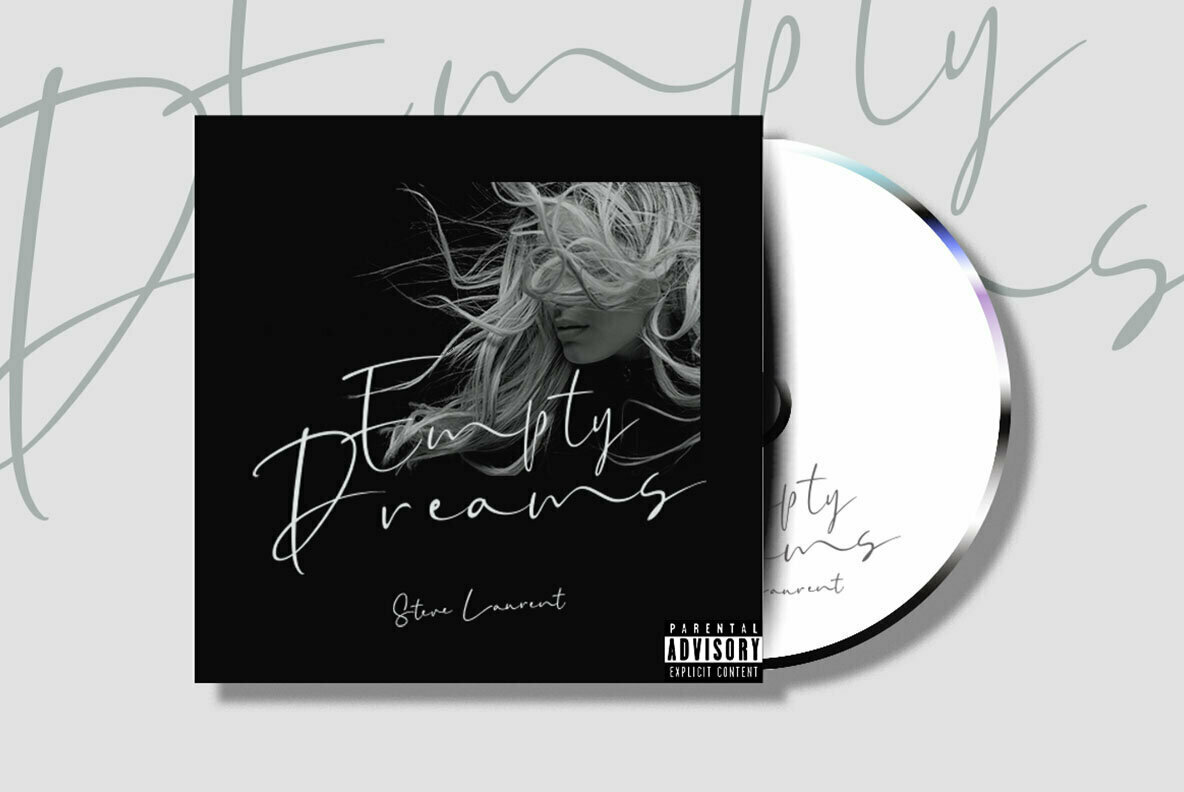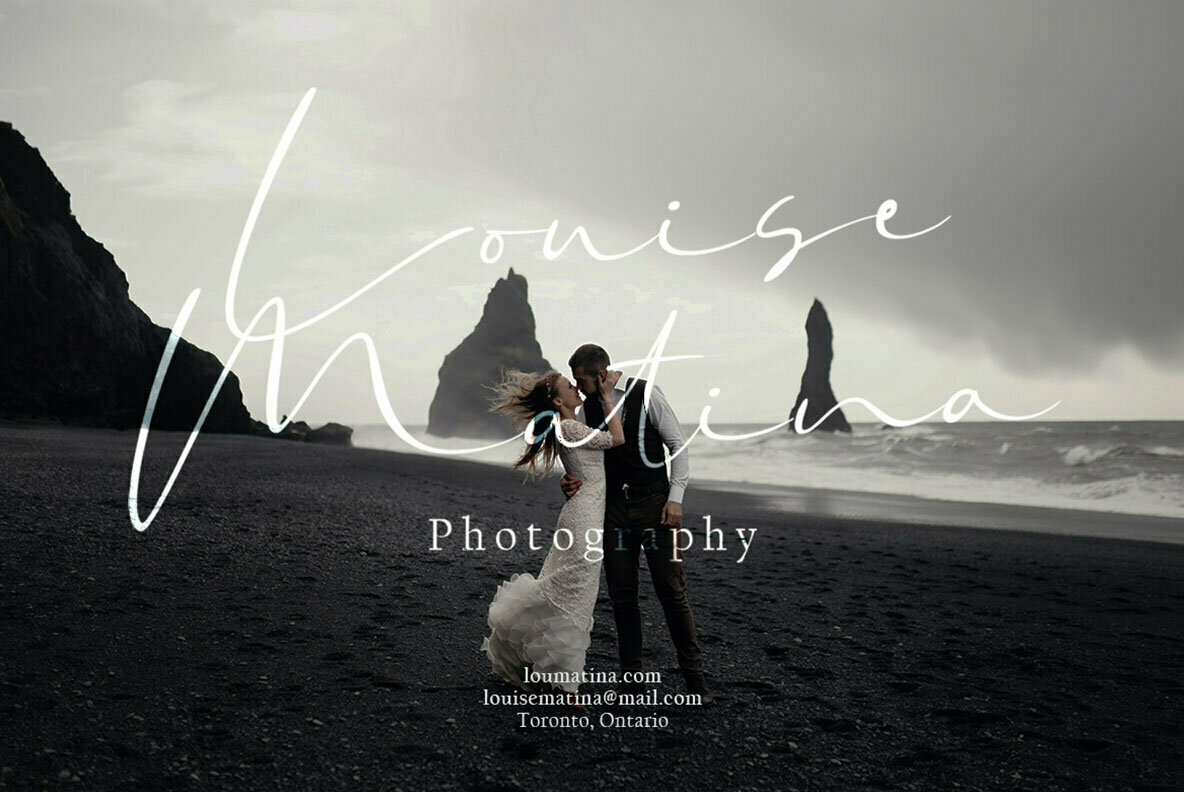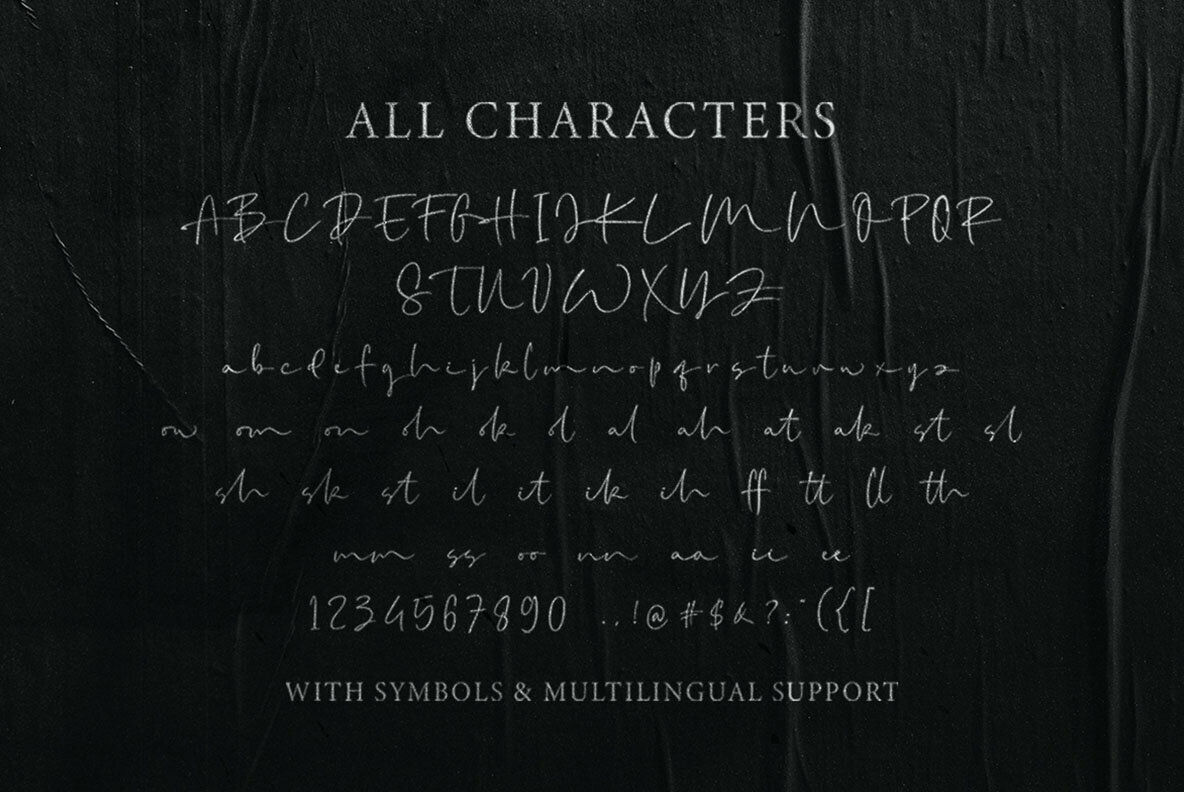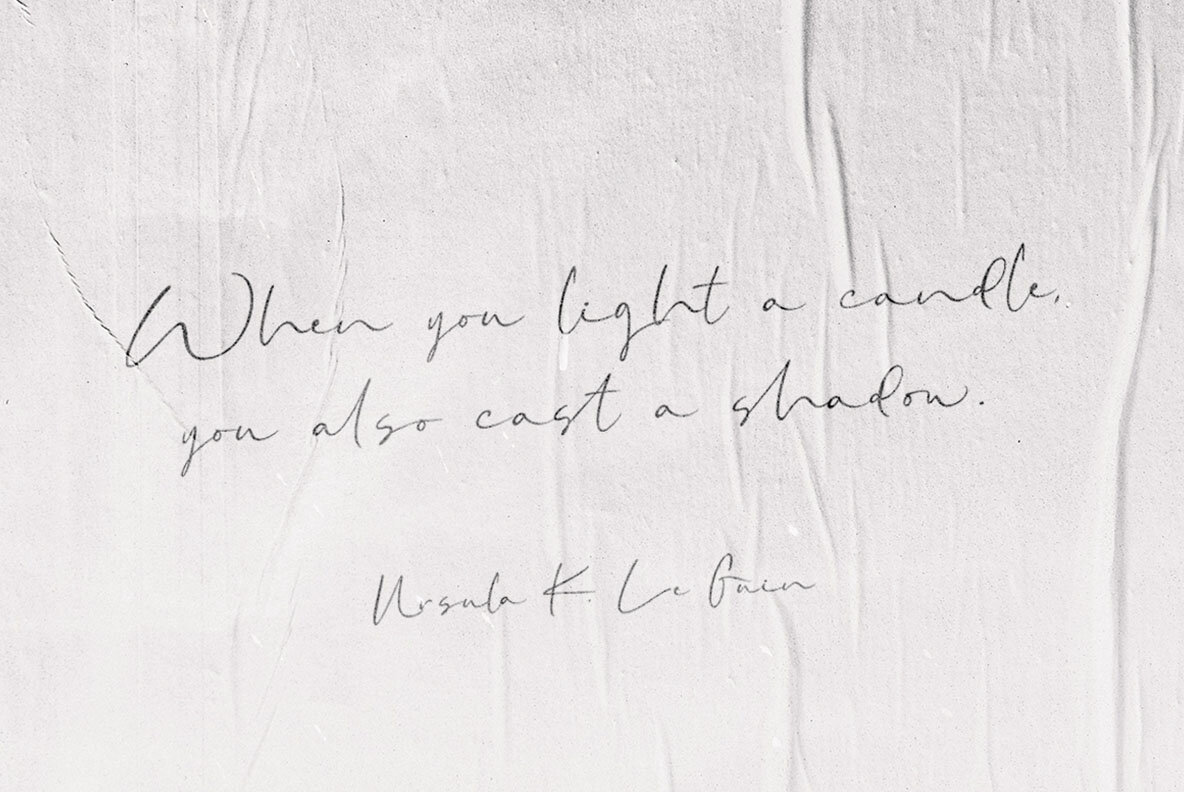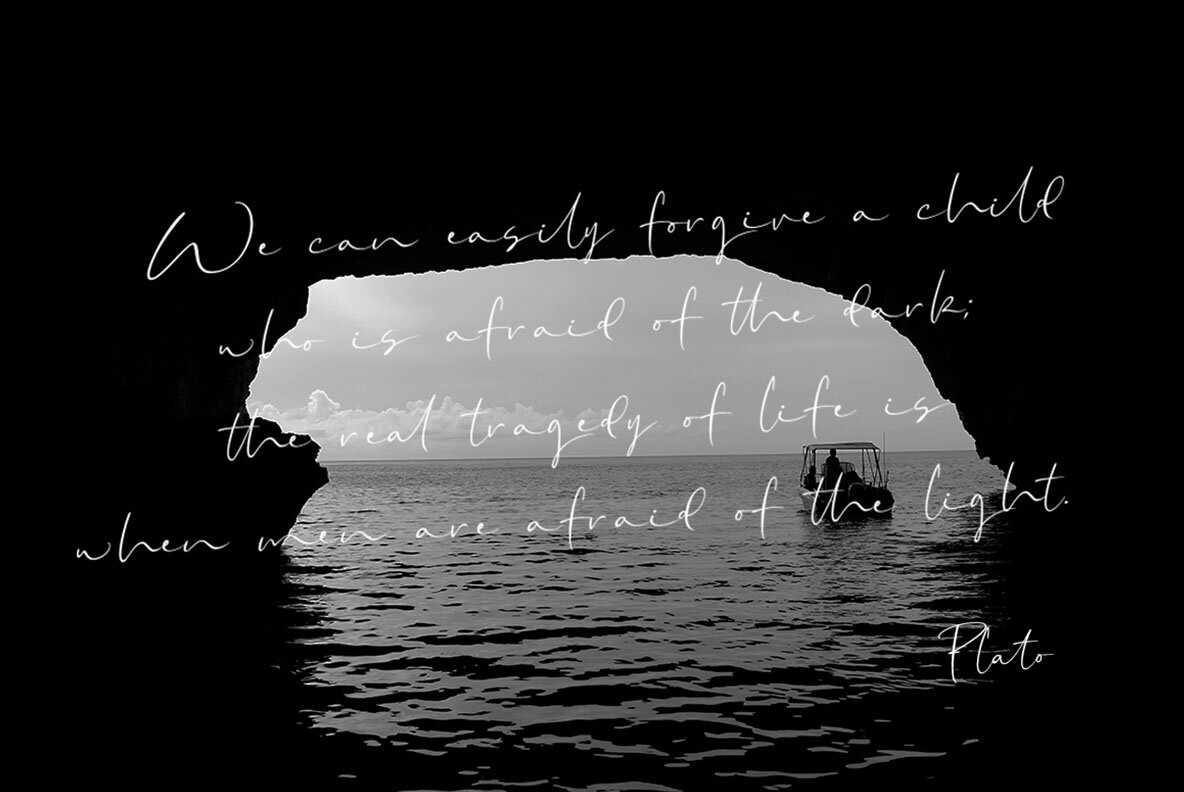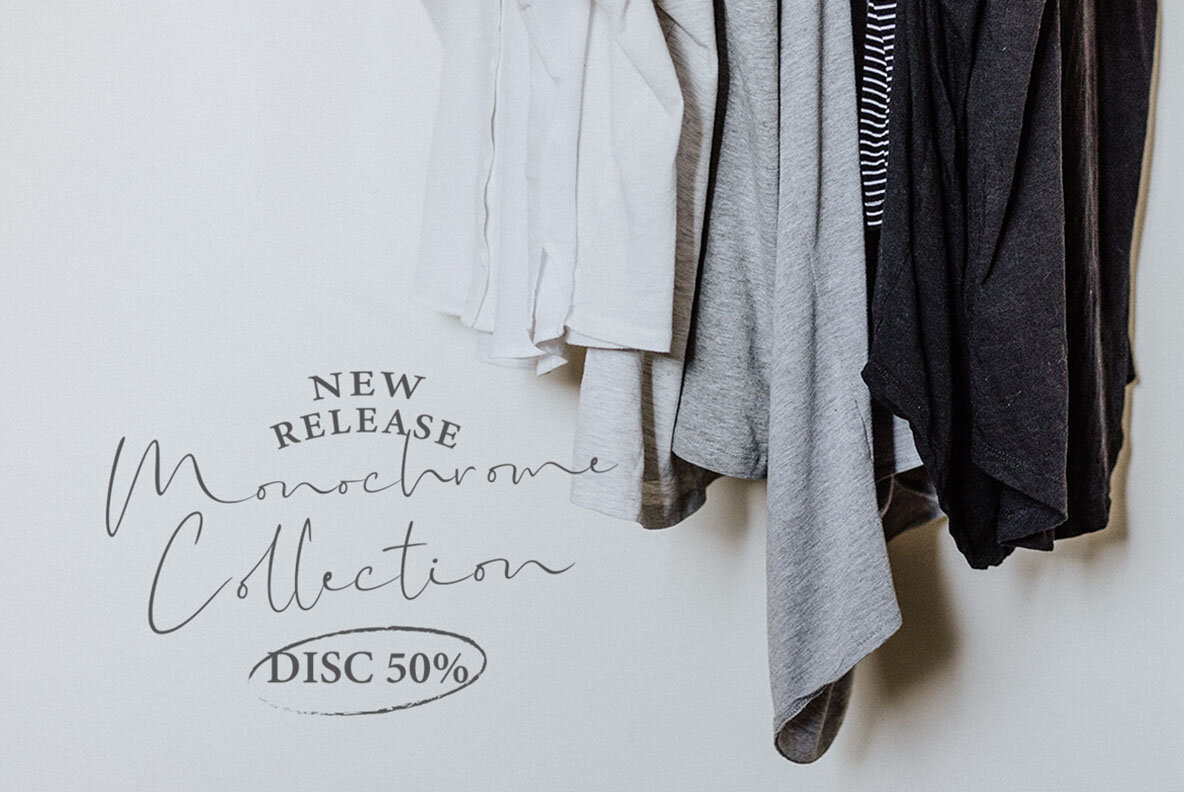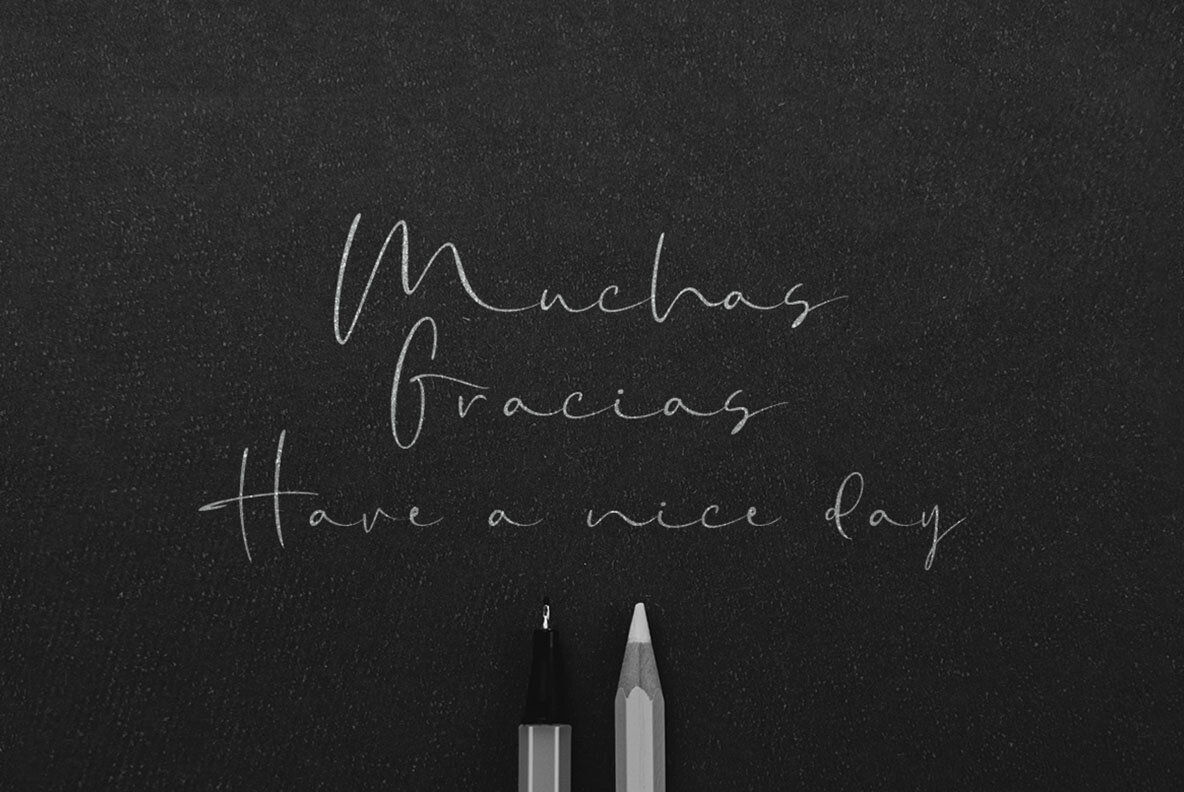
Amillia Rochete Font
Amillia Rochete Regular
The Amillia Rochete font exudes a natural signature style, ideal for projects that demand a personal touch. Its effortlessly elegant character makes it a perfect choice for crafting logos, enhancing formal invitations, and adding sophistication to book covers and magazines. Whether it's for greeting cards, wedding materials, or packaging, this script font adapts seamlessly, providing a professional yet personal feel.Amillia Rochete: Authentic Script Font